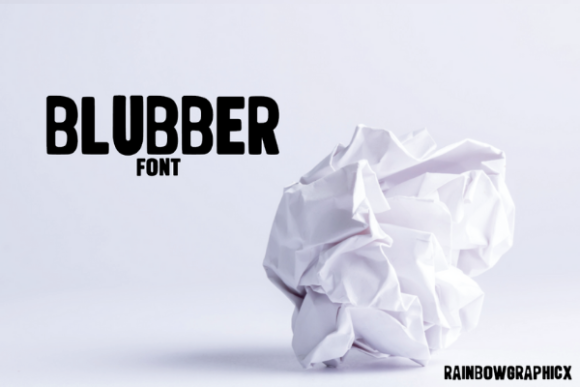
Unleashing Your Inner Comic Book Hero
Have you ever been brainstorming a new design project and suddenly felt the urge to unleash your inner child? For me, it’s often a late-night session of comic book browsing that sparks the creative juices. Maybe it’s the vibrant colors, the quirky characters, or the bold typography that gets me excited – but whatever it is, it always leads to some amazing ideas.
One of my favorite discoveries from these late-night sessions is the Blubber Font. This fun and cool all-caps display font is reminiscent of all things comic, and it’s perfect for adding a playful touch to your designs. Whether you’re working on a graphic novel, a video game, or even a marketing campaign, Blubber Font is sure to bring a smile to your audience’s faces.
As a designer, you know how valuable it is to have a versatile and unique font in your arsenal. That’s exactly what the Blubber Font offers – a chance to add some personality to your work and stand out from the crowd.
- Unique Characteristic: Unique rounded, playful design with a sense of softness and friendliness
Blubber Font Review
First off, I have to say that I was a bit skeptical about the Blubber Font at first. It’s a bit unconventional, to say the least. But, after diving deeper, I found some interesting aspects that I want to share with you.
- The font has a unique, playful vibe that can be perfect for certain projects, like children’s books or advertising campaigns.
- The characters are well-designed, with clean lines and no major inconsistencies.
- The font comes in a range of weights and styles, making it easy to find the perfect fit for your project.
- The font may be too playful or cartoonish for more serious projects, like corporate or professional branding.
- The font lacks a clear, cohesive identity, making it difficult to determine its purpose or target audience.
- The font may not be suitable for smaller text sizes due to its rounded, whimsical shapes.
Overall, I think the Blubber Font has potential, but it needs to be used carefully and thoughtfully. With a clear understanding of its strengths and weaknesses, designers can use it to create unique and engaging projects.
Blubber Font is ideal for:
- Creating playful and eye-catching headlines.
- Designing children’s books and educational materials.
- Adding a touch of personality to social media graphics.